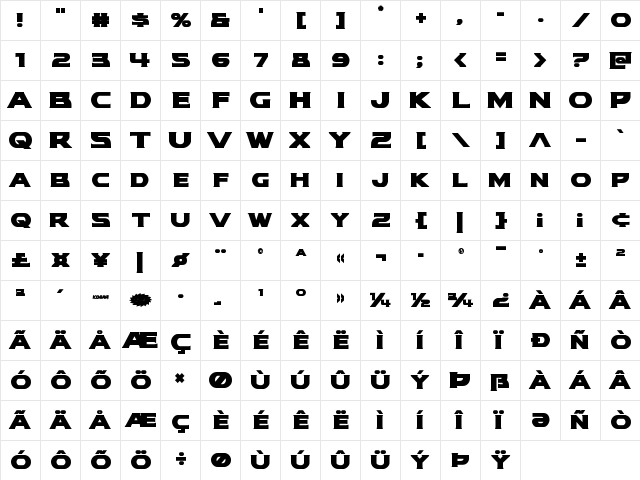
Modi Thorson Bold Bold
Design Context for Modi Thorson Bold Typeface
Modi Thorson Bold is a composed and adaptable typeface that performs quietly and consistently across a wide range of design contexts. Its bold stroke weight gives it real presence on the page.